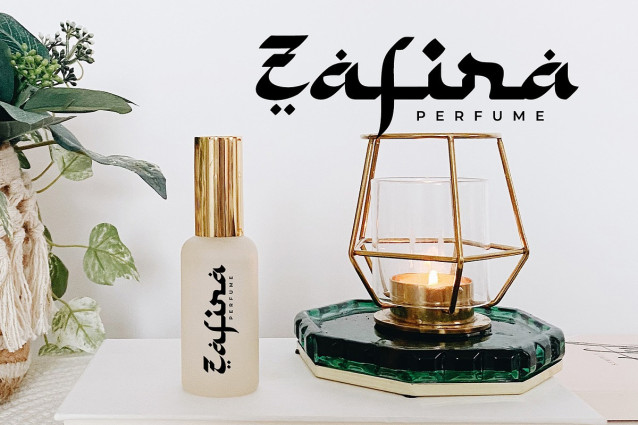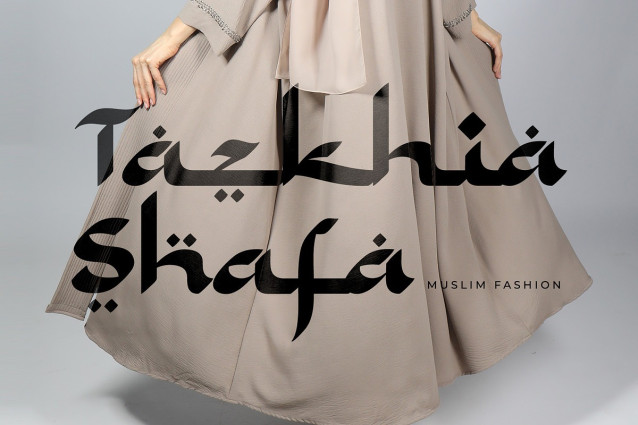
Kahfee Arabic Font
Kahfee Arabic Font a mesmerizing display font that invites you into a world where artistry and elegance merge seamlessly. Kahfee takes its inspiration from the captivating aesthetics of Arabic script. In this font, you’ll find that every letter is thoughtfully connected, creating a captivating rhythm that mimics the graceful dance of Arabic writing. The strokes and curves are a tribute to the centuries-old tradition of Arabic calligraphy.